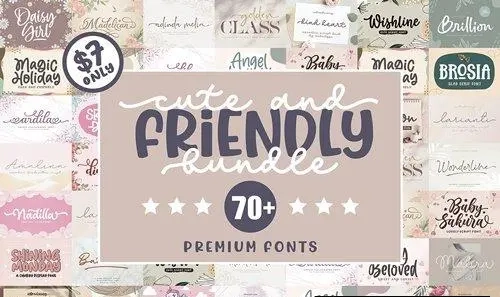
Cute And Friendly Fonts Bundle
Introducing the Cute And Friendly Fonts Bundle, a delightful collection of typefaces that bring warmth and personality to your designs. This bundle features a variety of playful and approachable font styles, perfect for creating engaging branding, logos, web content, and print materials.
• Multiple font styles including script, sans-serif, and display fonts
• Various weights to suit different design needs
• Easy to read and visually appealing
Each font in this bundle has been crafted with attention to detail, ensuring that they are not only cute but also functional. The versatile styles make them suitable for both digital and print projects.
• Ideal for children’s products, invitations, and greeting cards
• Great for social media graphics and websites
• Combine different styles for a unique look